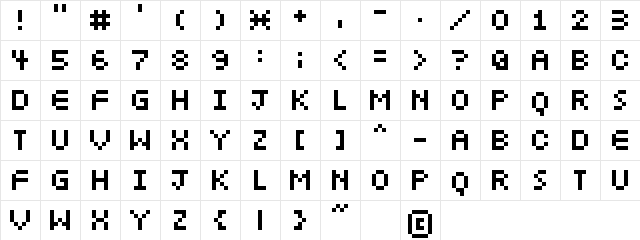
6pxbus Regular
Design Context for 6pxbus Typeface
6pxbus is a composed and adaptable typeface that performs quietly and consistently across a wide range of design contexts.